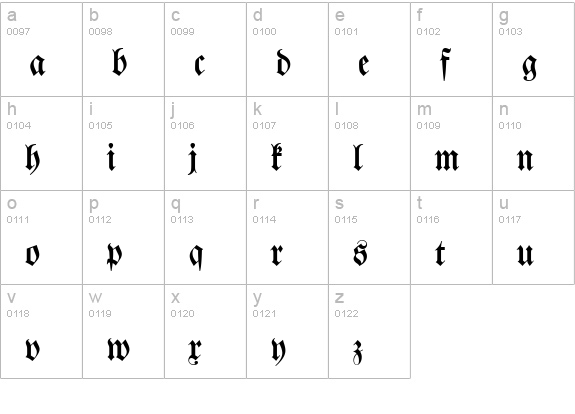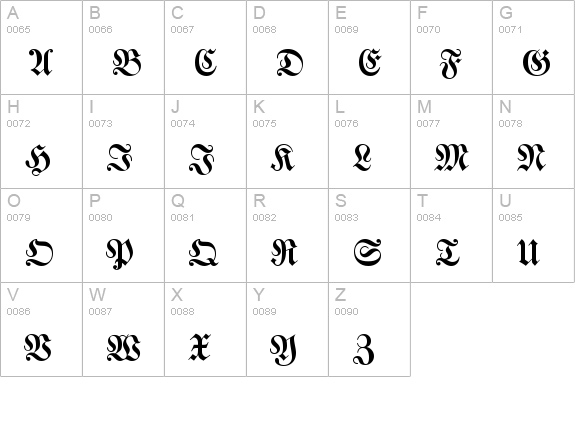
Walbaum-Fraktur-Regular Font Details
Walbaum-Fraktur-Regular is the standard, neutral variant in the Walbaum typeface family \xE2\x80\x94 well suited to general body text, paragraphs, and standard typographic work.
Walbaum-Fraktur-Regular is a classic and elegant font that exudes sophistication and timeless charm. With its delicate serifs and intricate details, this typeface is perfect for adding a touch of refinement to any design project. The balanced contrast between thick and thin strokes gives it a sense of grace and poise, making it ideal for formal invitations, luxurious branding, and elegant editorial layouts. What sets Walbaum-Fraktur-Regular apart is not only its aesthetic appeal but also its versatility. Whether you're looking to create a vintage-inspired poster or a modern logo with a twist of tradition, this font has you covered. Its timeless design transcends trends, ensuring that your work will stand the test of time. And the best part? Walbaum-Fraktur-Regular is available for free download at FontsMarket.com. This means that you can access this exquisite font without any cost, making it a valuable addition to your font collection. Don't miss out on the opportunity to elevate your designs with the beauty and sophistication of Walbaum-Fraktur-Regular – download it today and let your creativity soar.